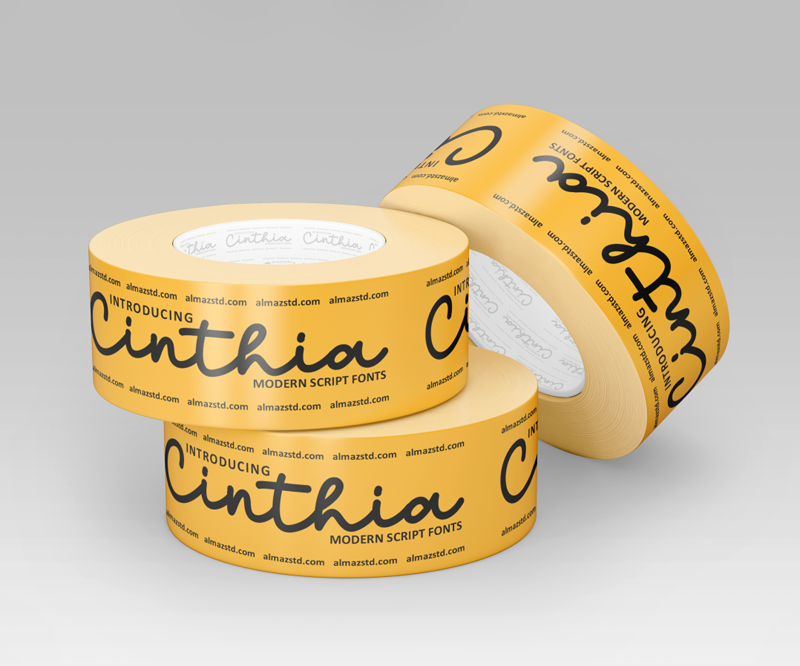
Cinthia font is a magnificent curved display font. Cinthia font is a minimalist script type fonts. Cinthia font is a sophistication with its lettering. This demo font is for PERSONAL USE ONLY! Please contact me before any commercial use. My fonts for free use allowed only in personal project, non-profit and charity use. If you make money from using my fonts, Please purchase a commercial license here : https://almazstd.com/fonts/cinthia/ But any donation are very appreciated. PayPal account for donation : https://www.paypal.me/almazstd For more information about my fonts, please check on my web; www.almazstd.com THANK YOU... :) |